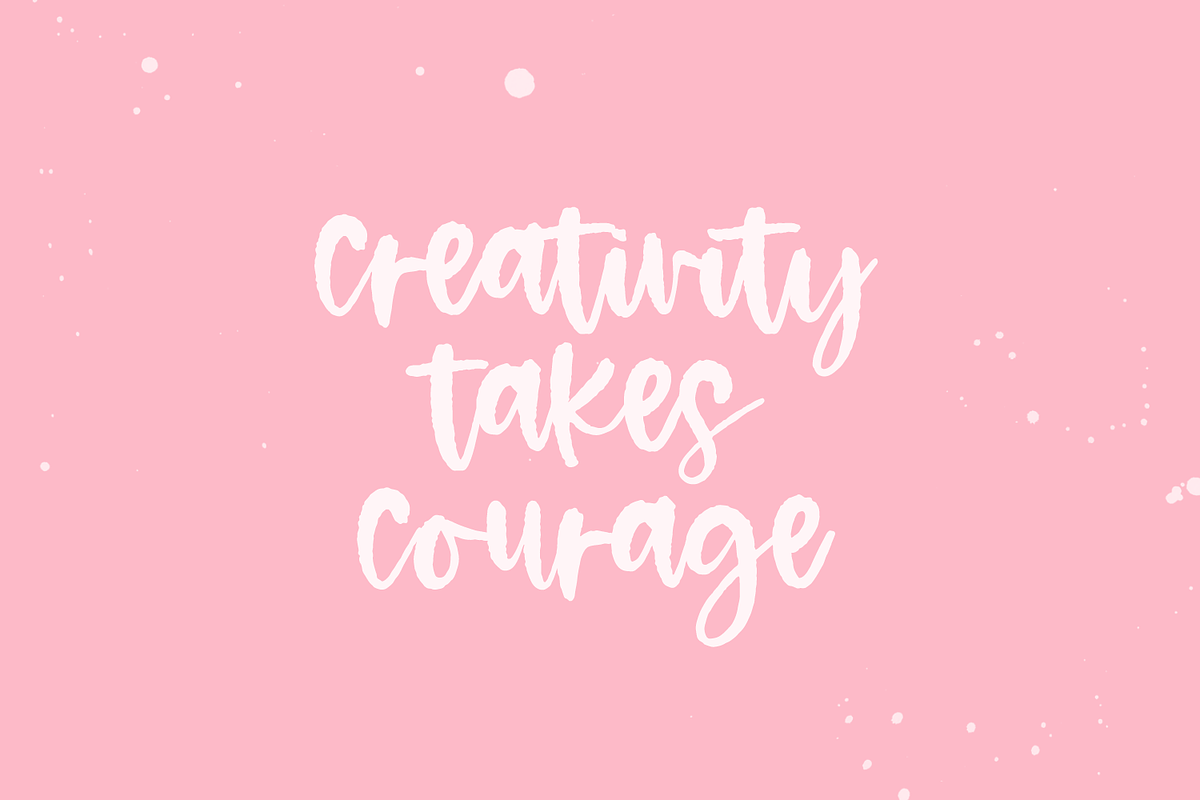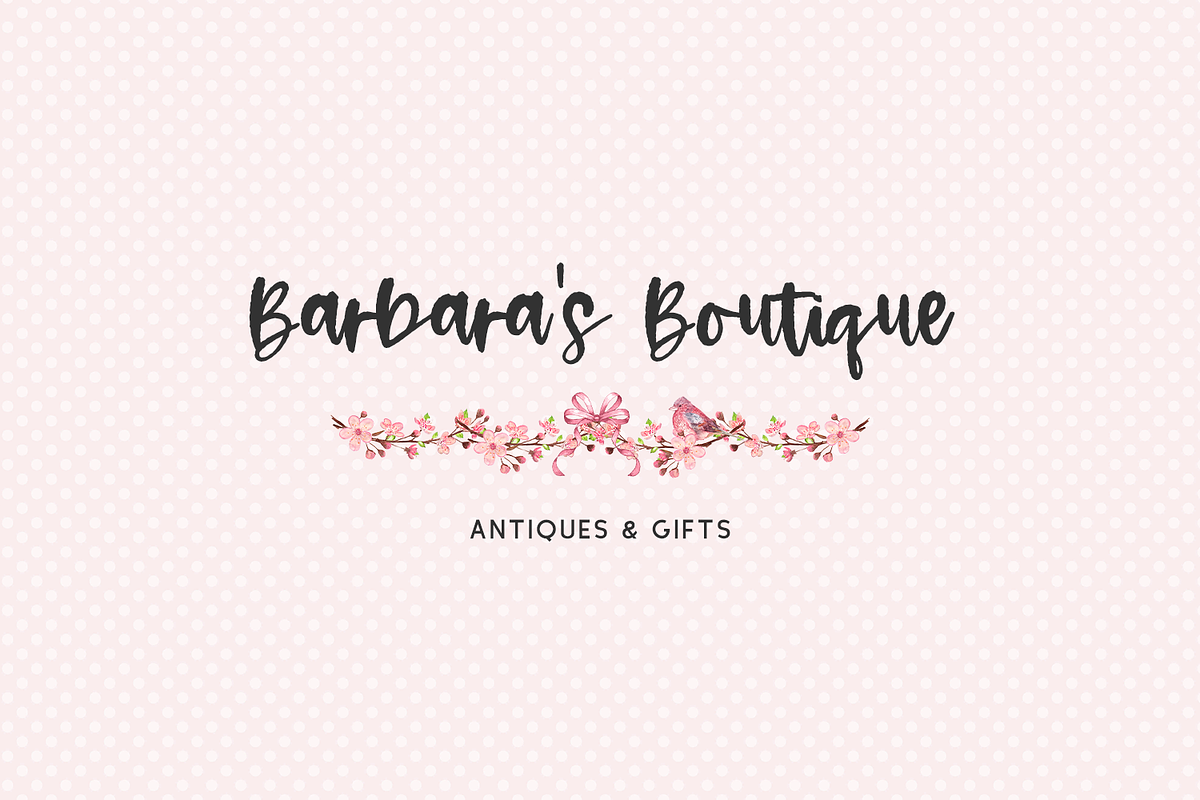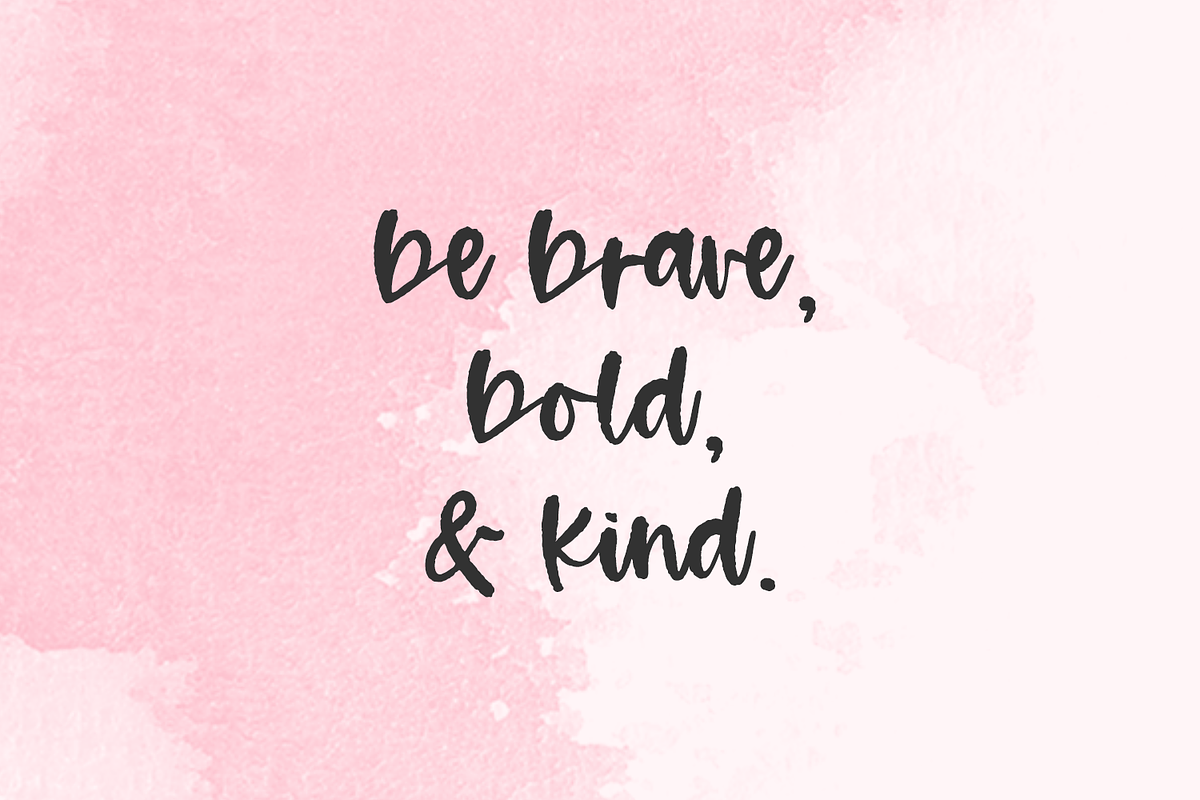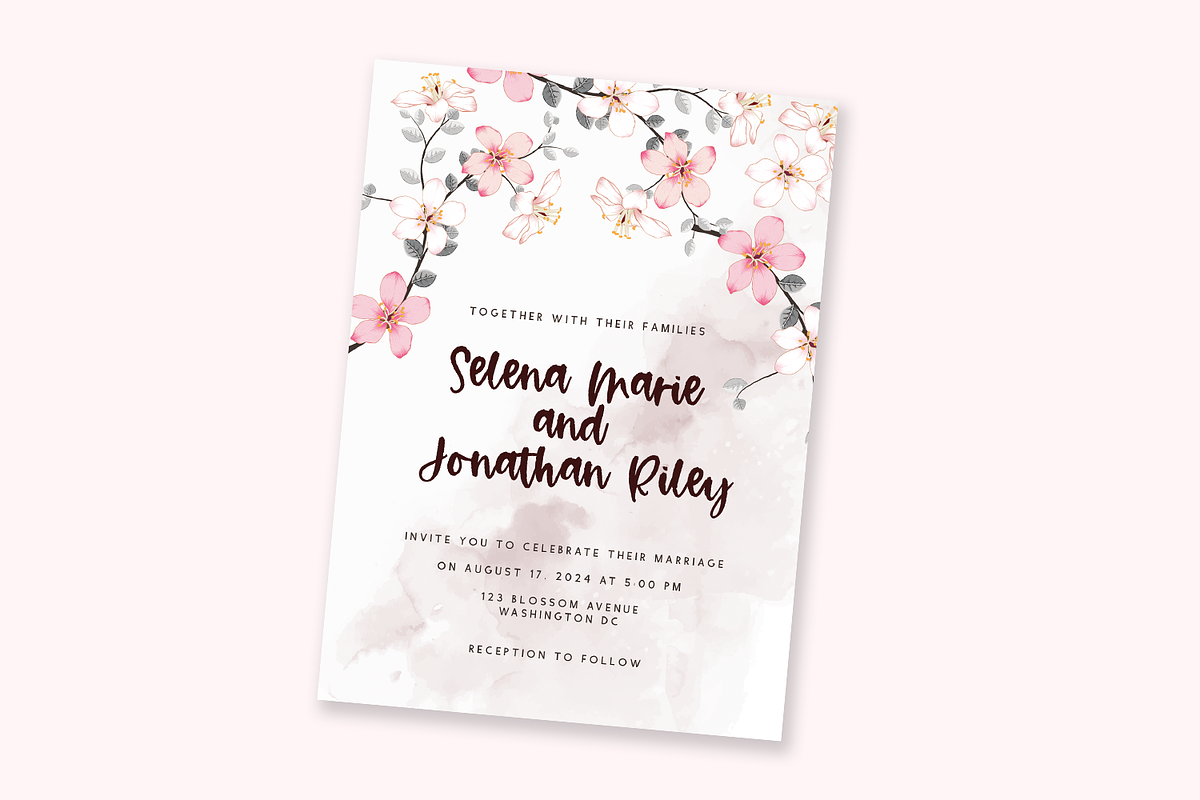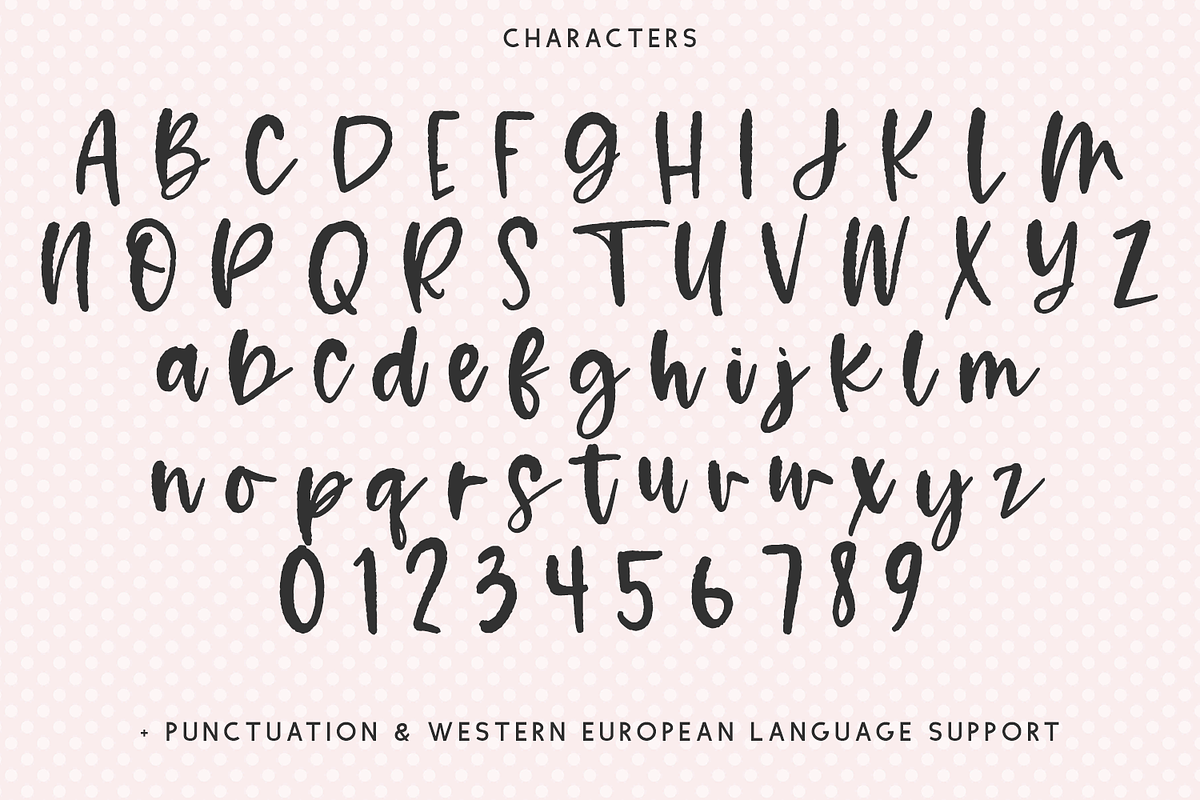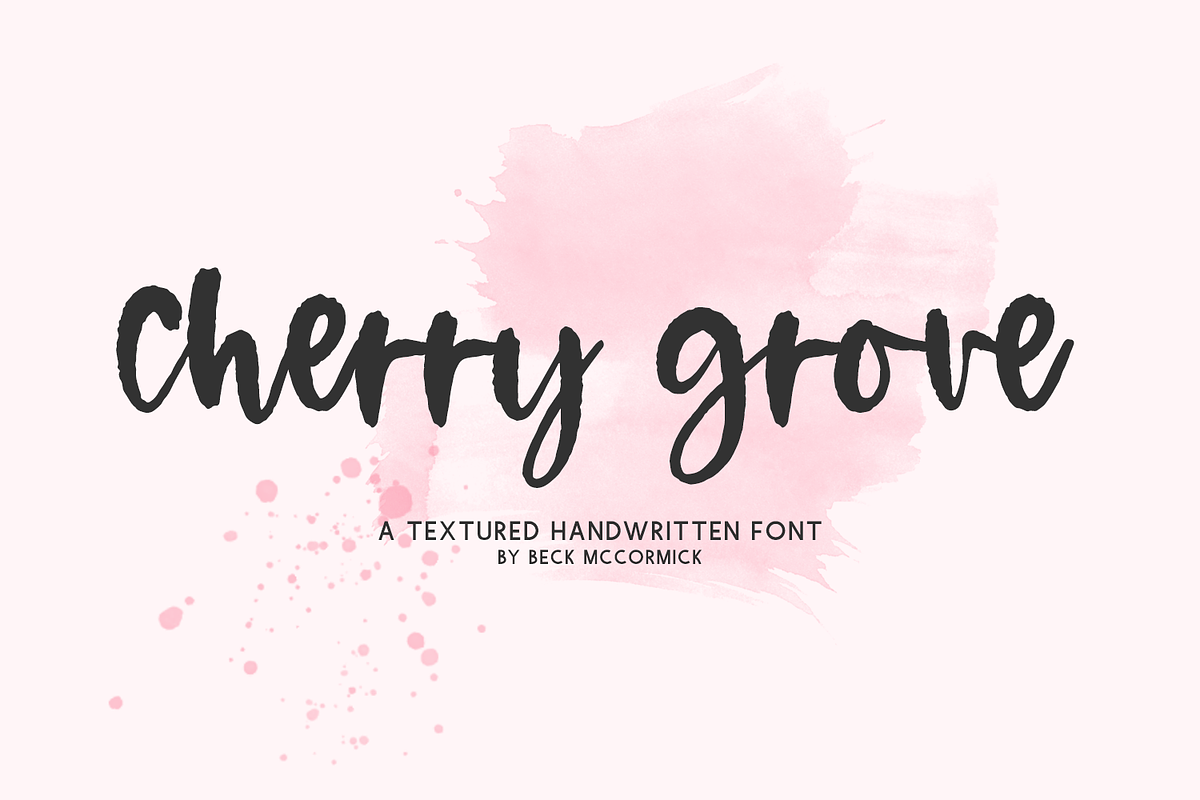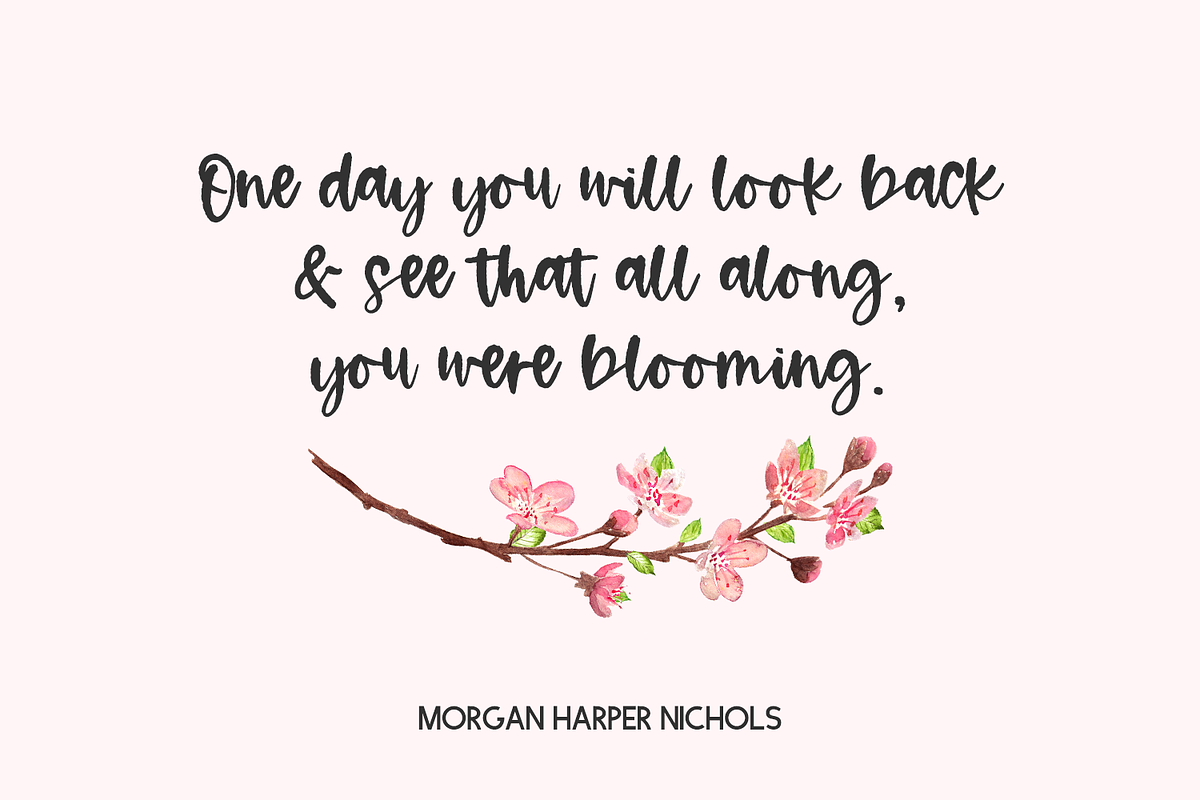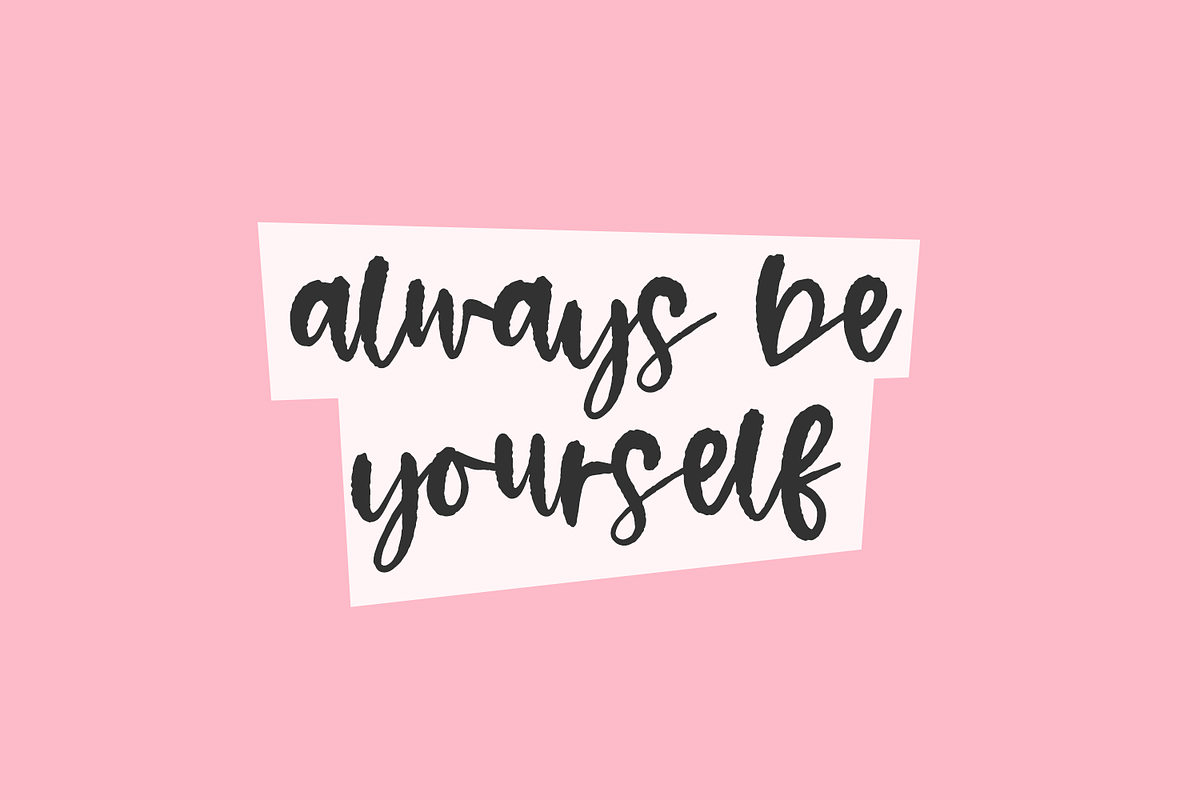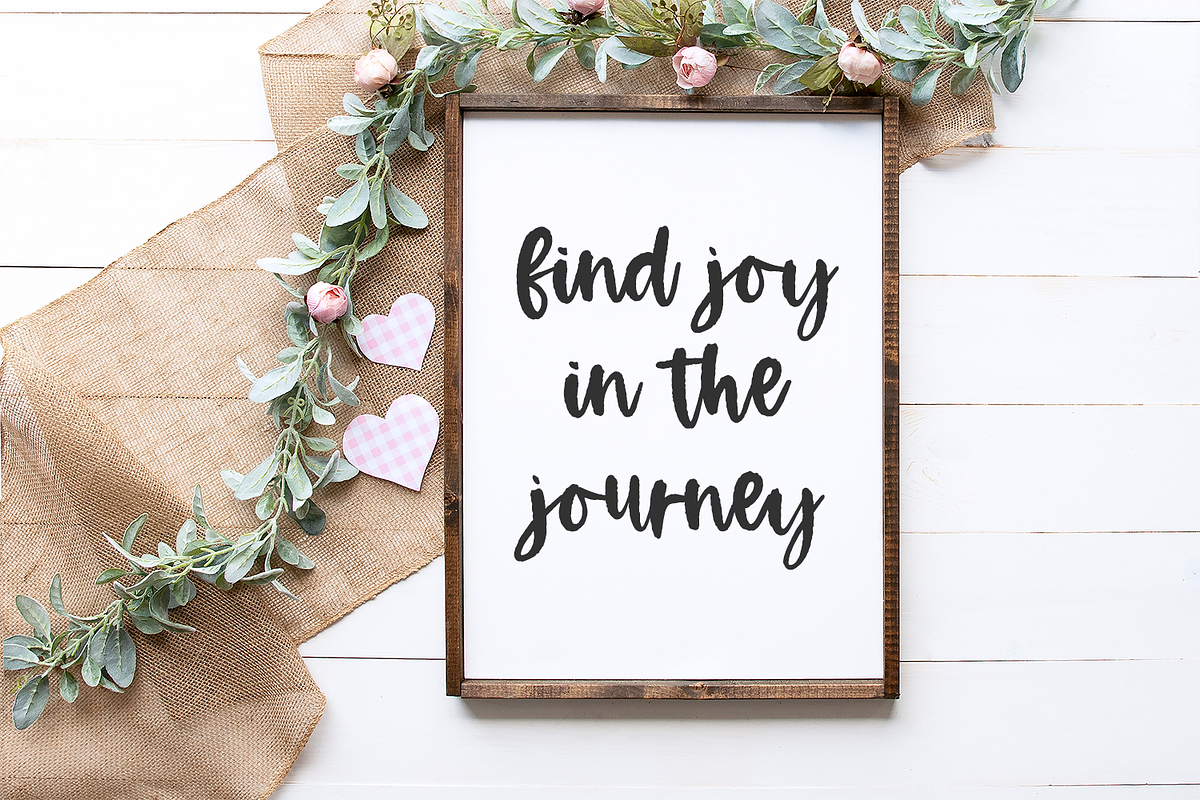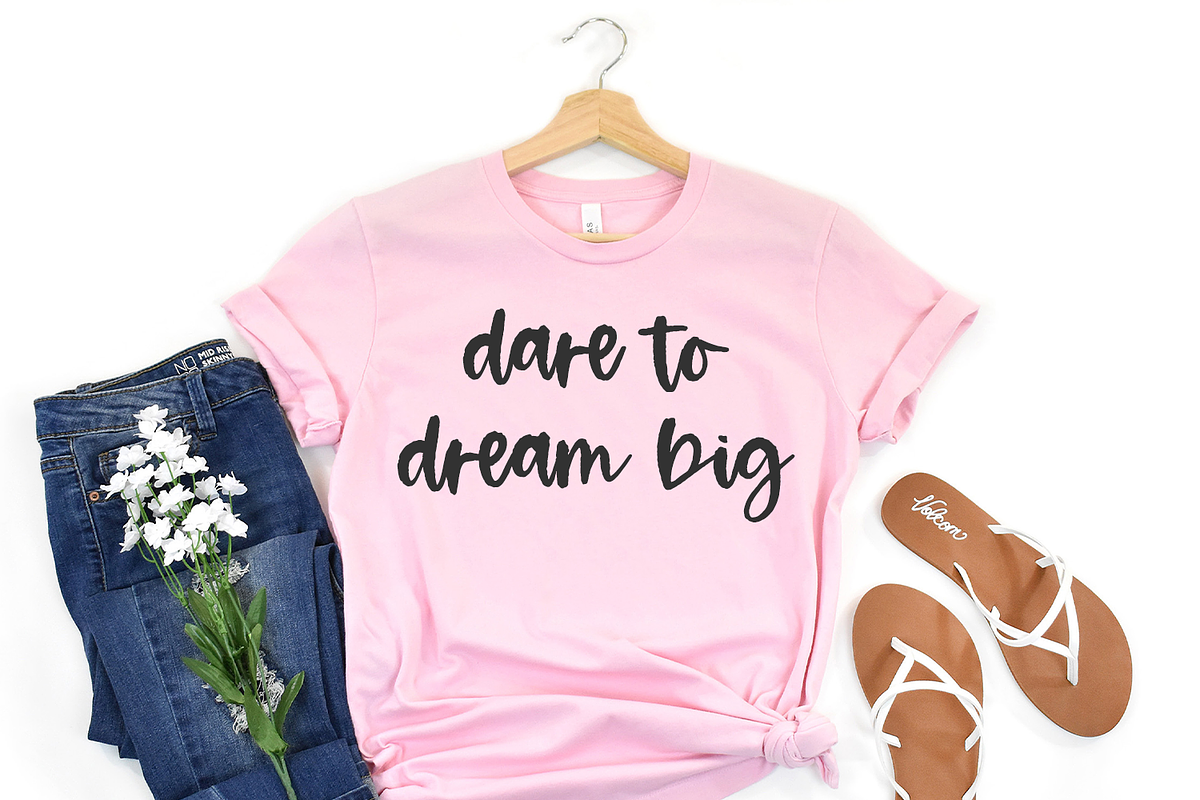
Cherry Grove Script
Introducing Cherry Grove, a lightly textured bouncy calligraphy font.
Cherry Grove is best for:
- farmhouse decor and crafts
- logos + branding
- digital planners & apps like Goodnotes
- website design + website accents, blog design
- clean print design, like magazines + flyers
- header elements that need handwritten touch
- quote graphics for social media
- feminine graphic tee shirt design & other apparel
- full upper + lowercase characters
- numbers + punctuation
- Western European Language Support